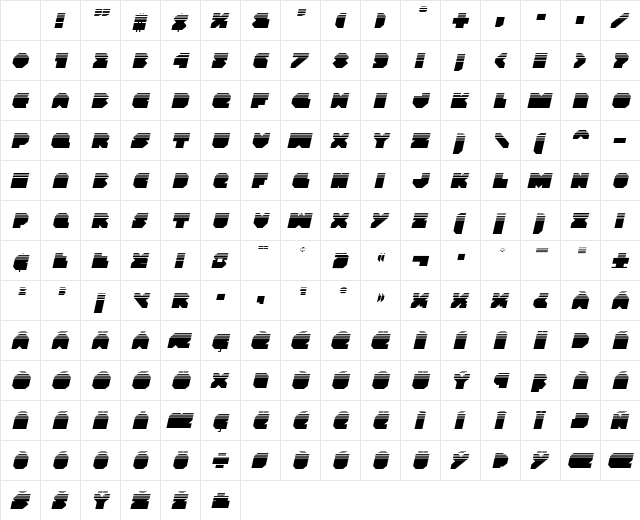
VX Rocket Halftone is a composed and adaptable typeface that performs quietly and consistently across a wide range of design contexts. The slanted form adds forward momentum and visual energy.